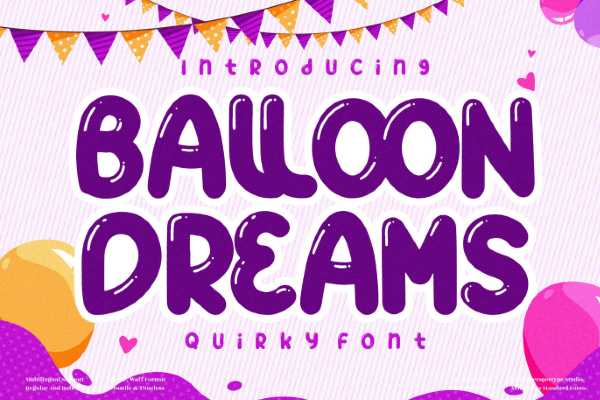
Fun and bouncy graphics and designs can easily be created with our free online balloon font generator tool. These balloon-style fonts have been around for a long time. as you've probably guessed, balloon-style fonts are primarily used for celebrations and parties. This font style is quirky, bold, and easy to read making it a fantastic choice for any project you can imagine. These typefaces look fantastic as a part of a stand-alone piece or as part of a much larger design. these fronts signify happiness joy and fun and they are guaranteed to turn heads. whether you're looking for a balloon lettering style for an invitation, a webpage, or anything else for that matter there's bound to be a balloon font to suit your needs.